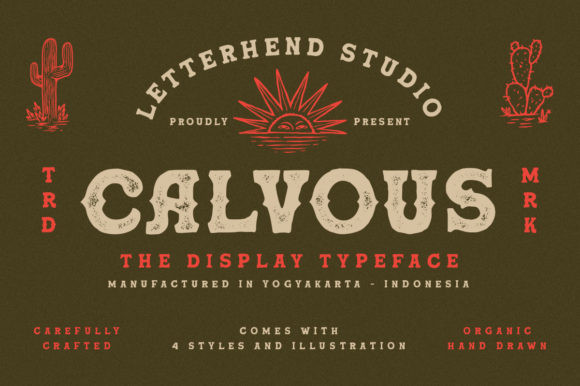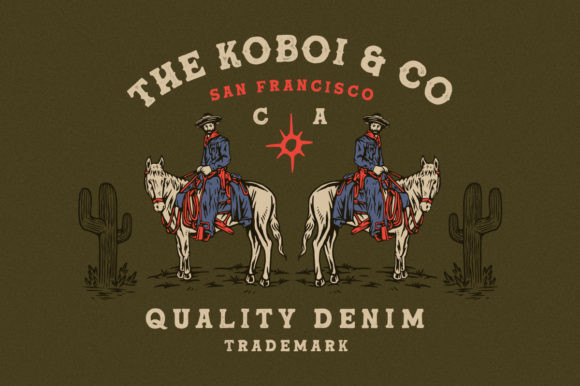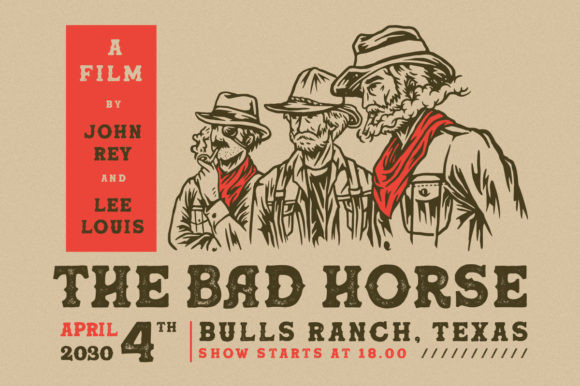
Calvous Font
Calvous brings together 4 fonts in distinct styles that allow you an extra level of versatility. With its raw serif elements, it’s perfectly suitable for adding a touch of classic western style to your next design.